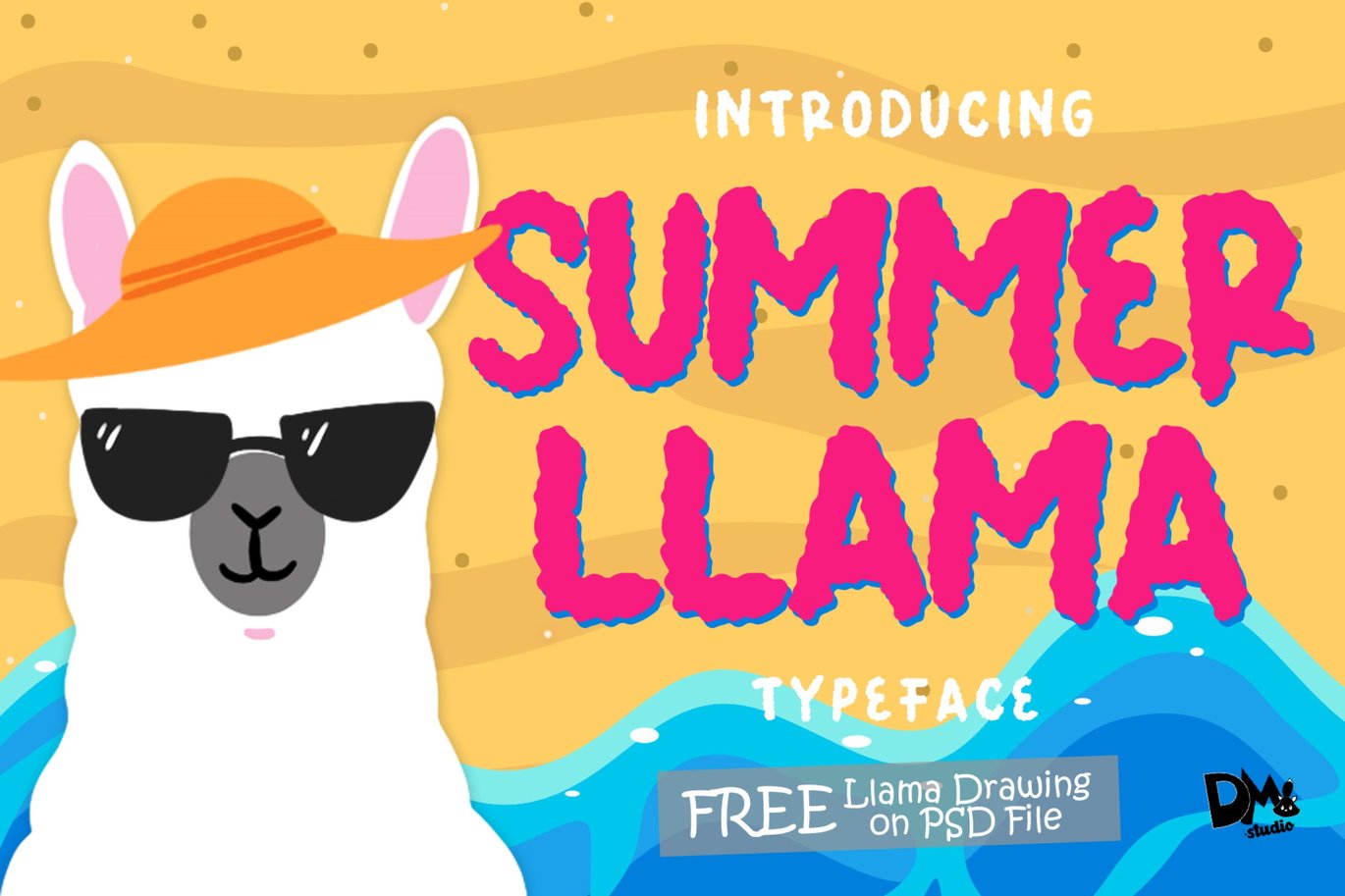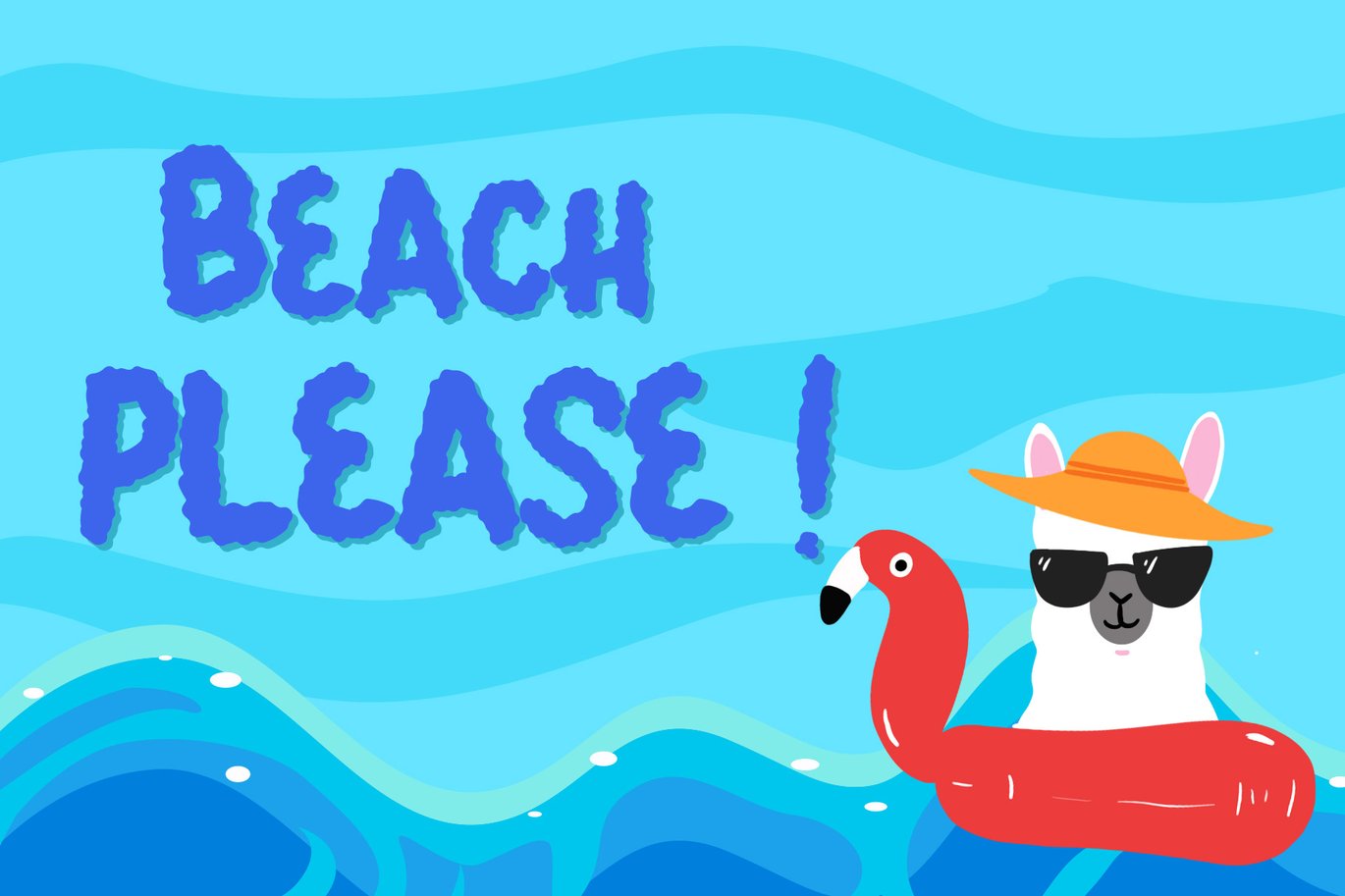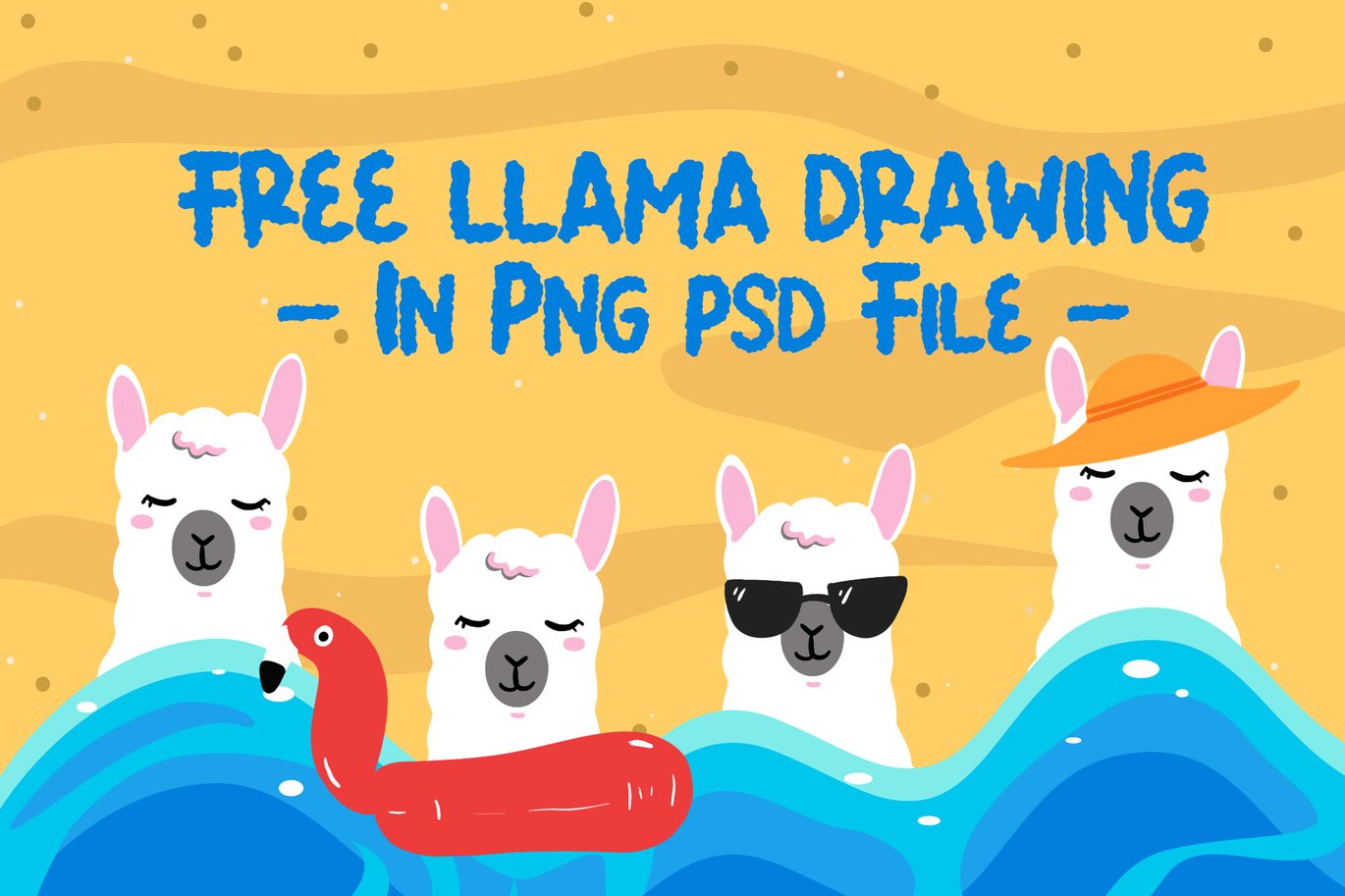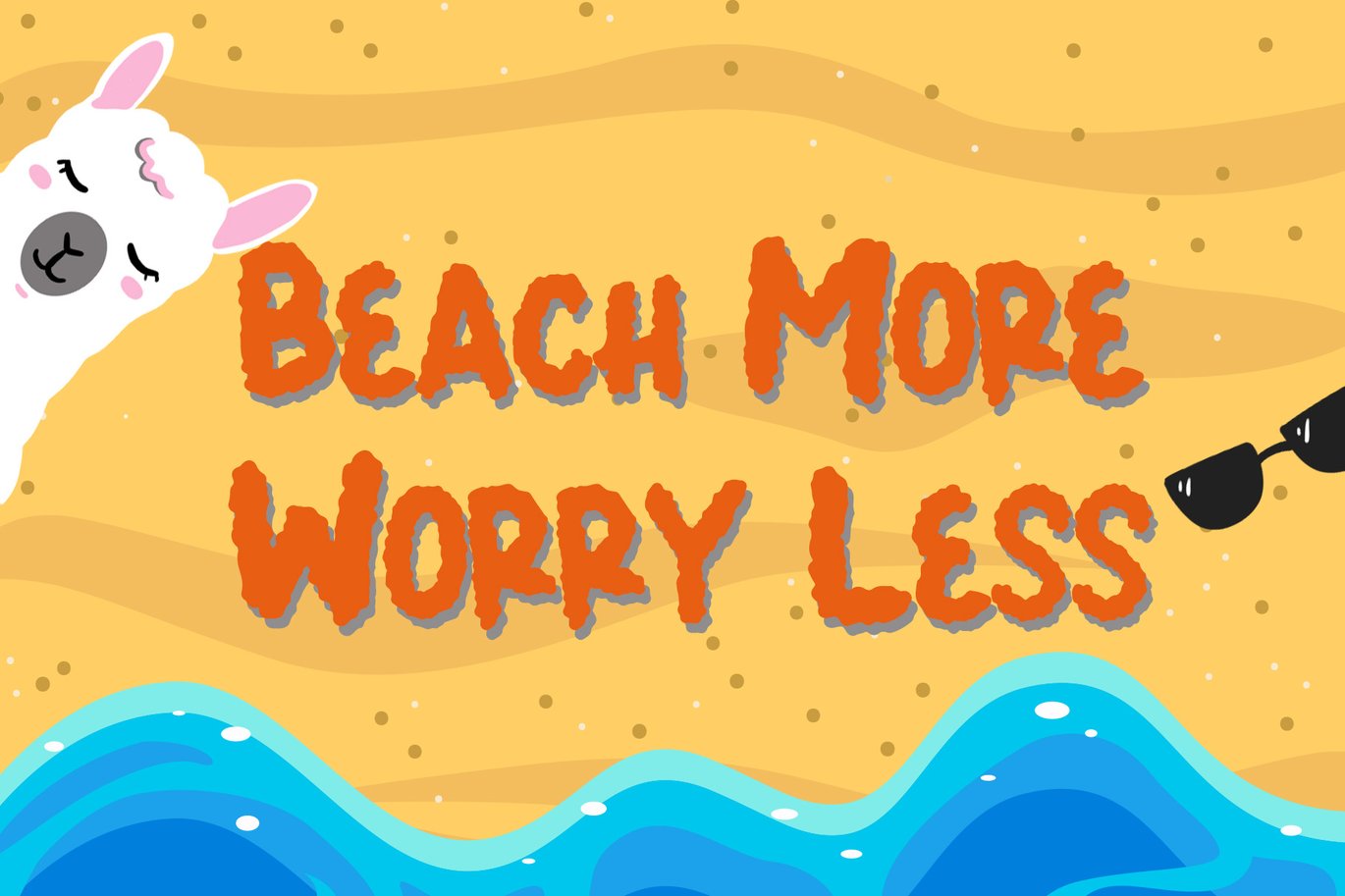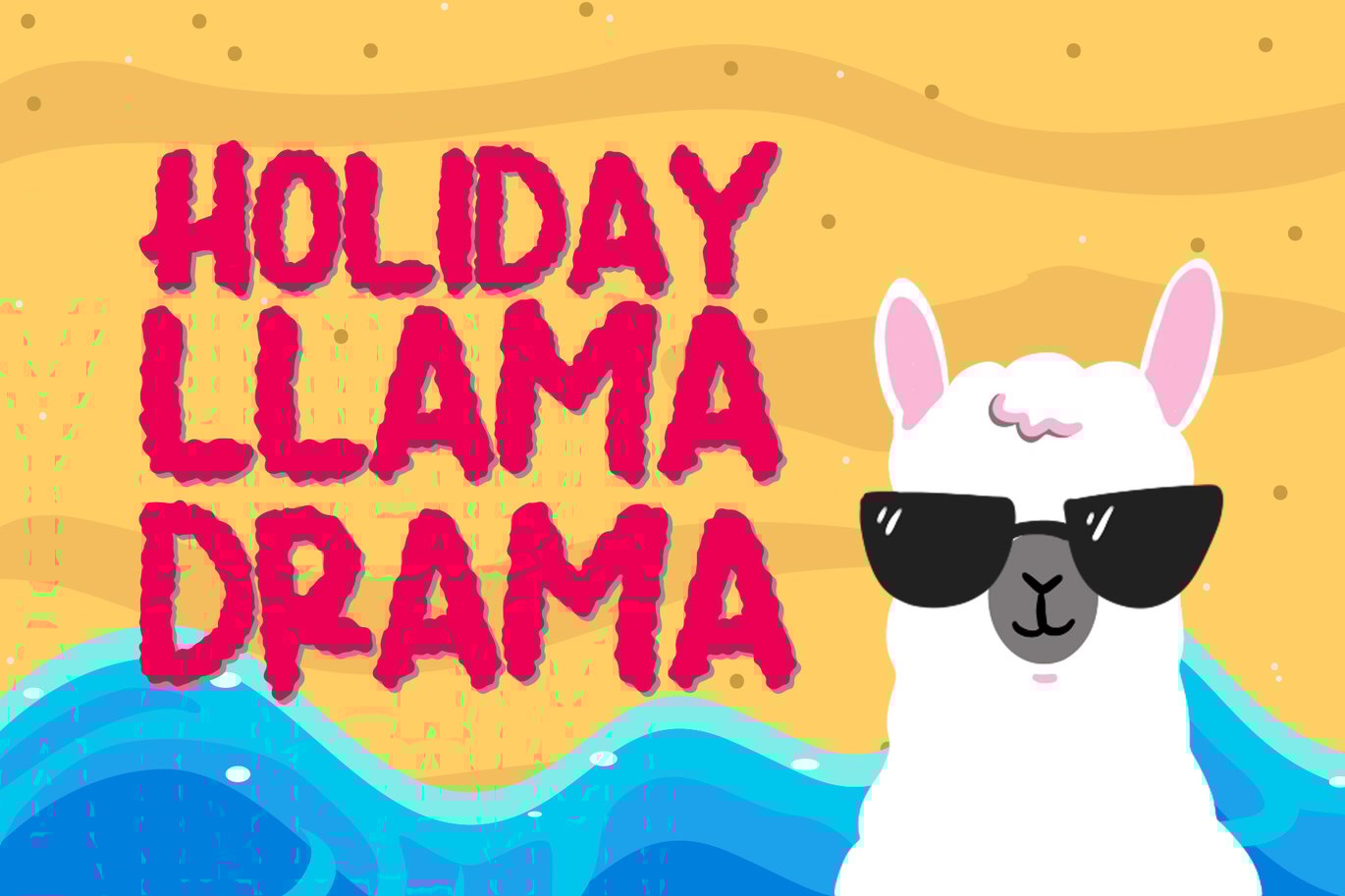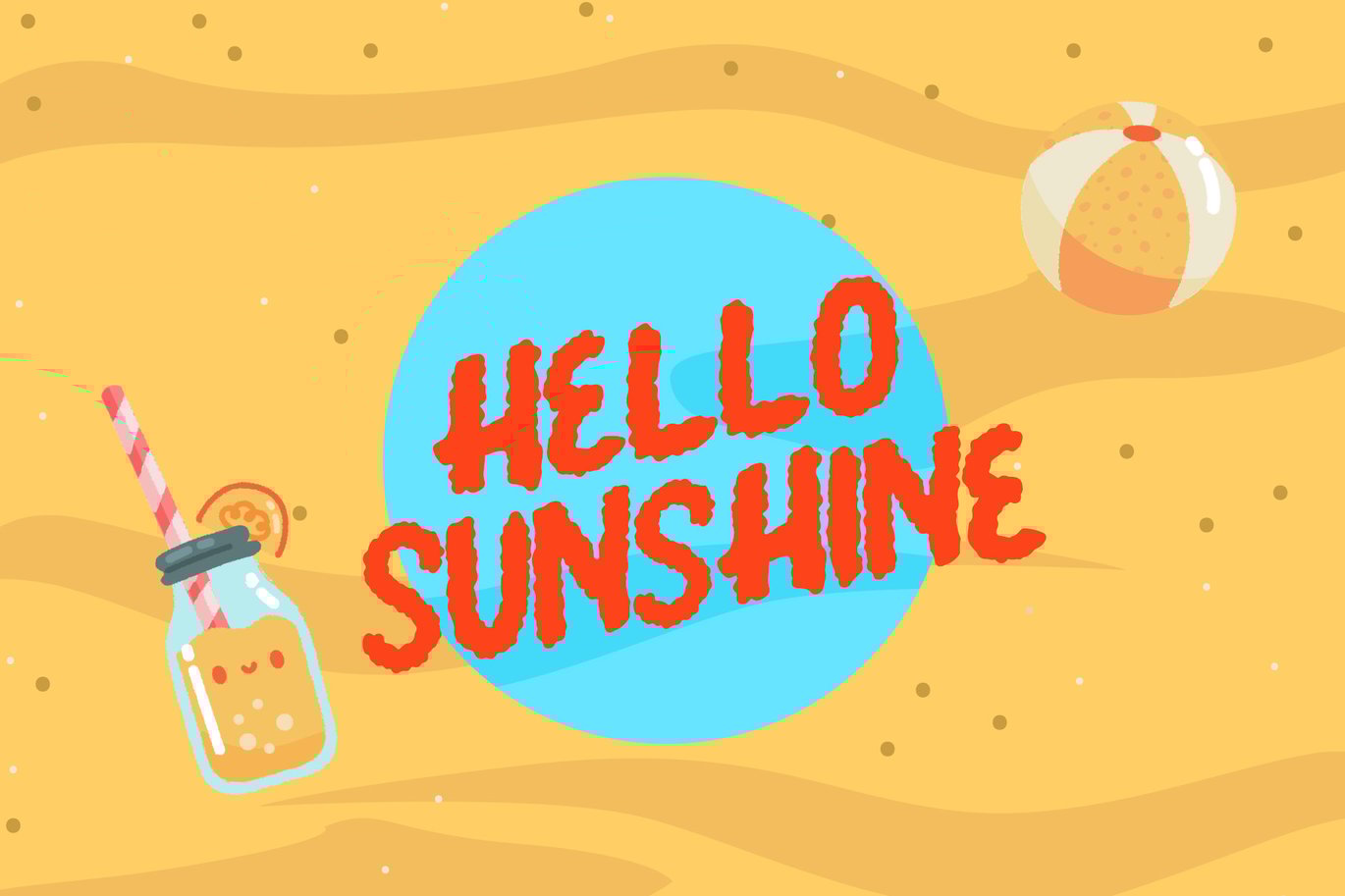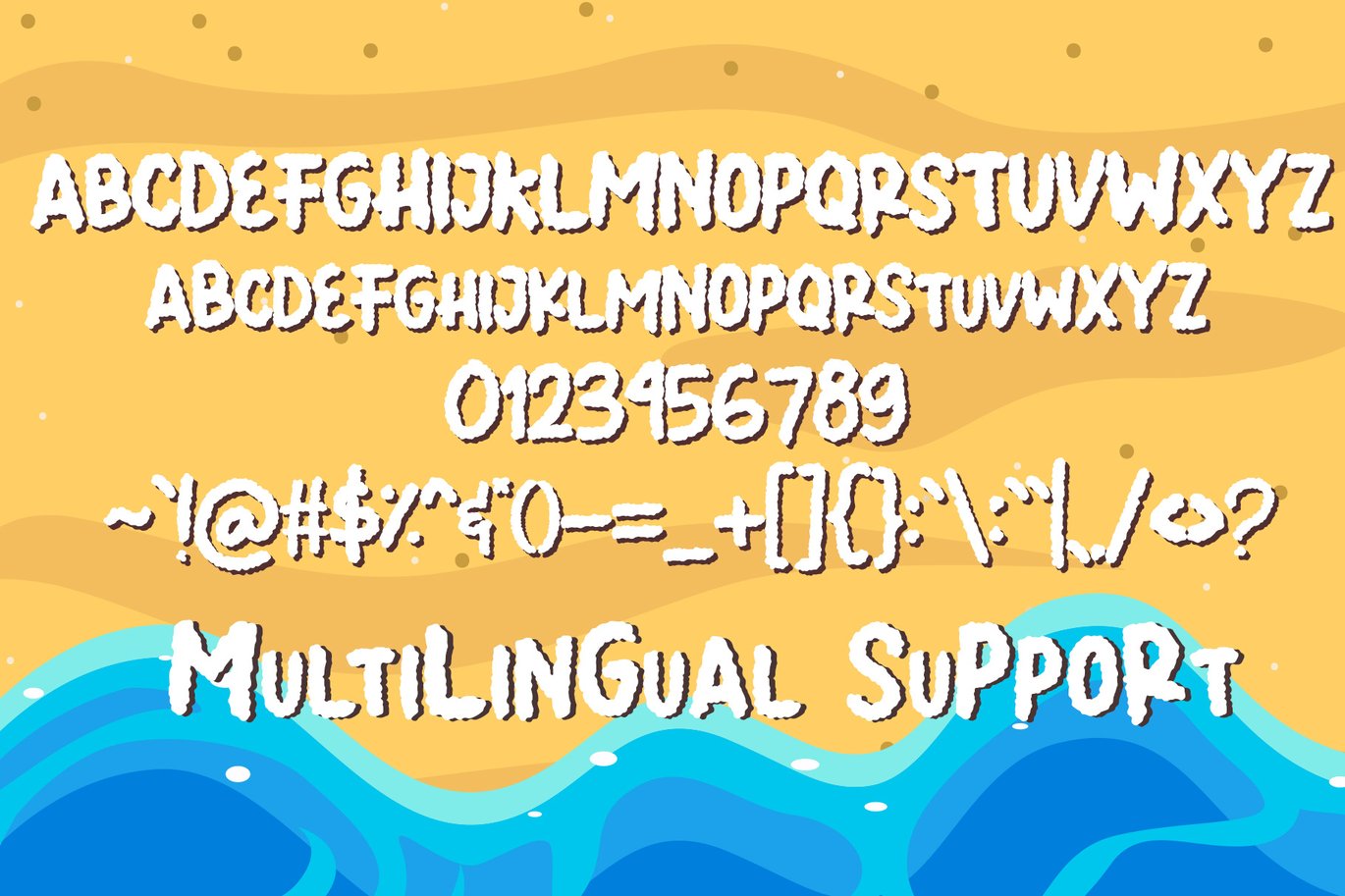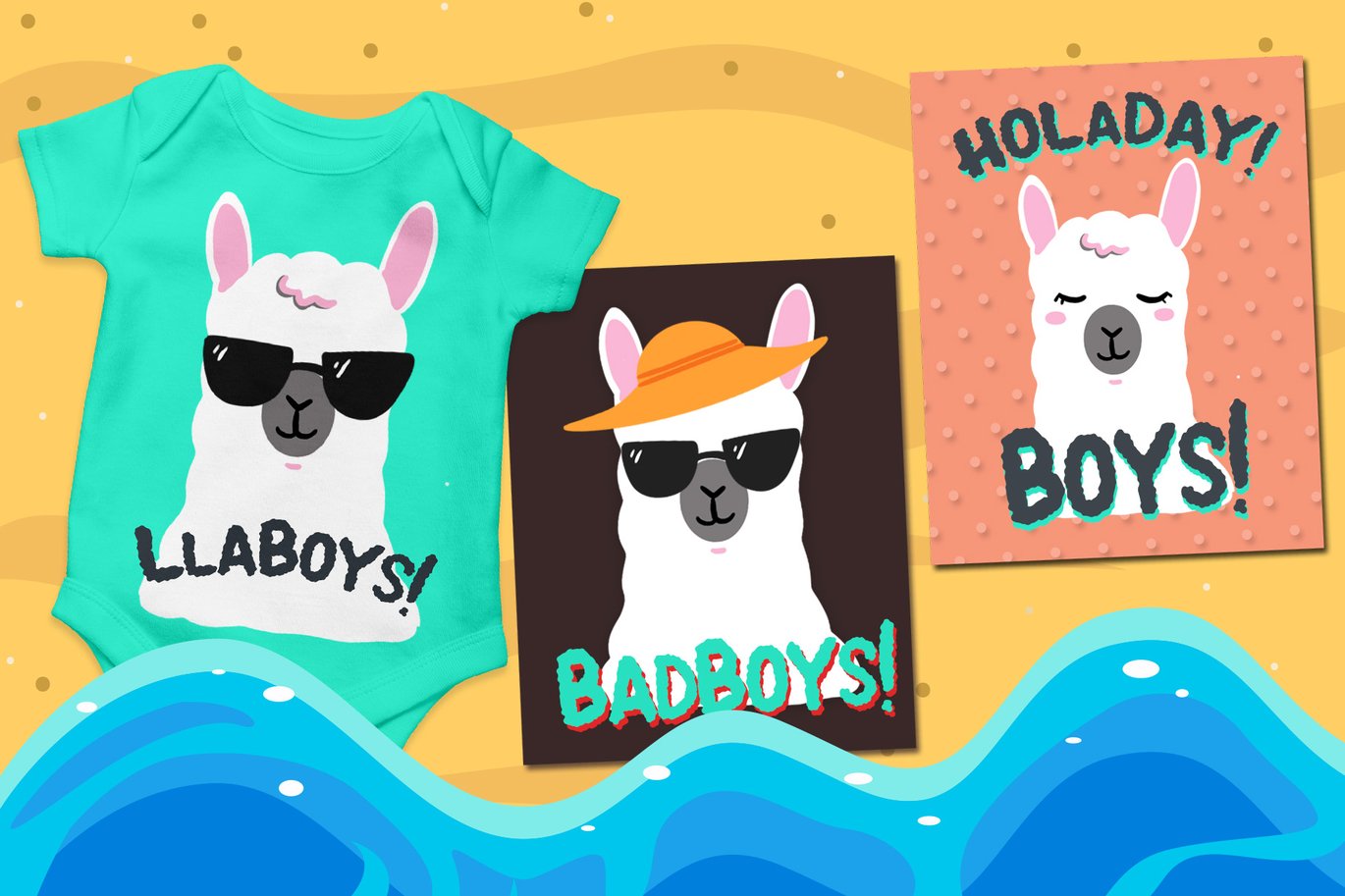
Summer Llama Typeface – Extra Drawing Llama
Welcoming Summer Llama !
It’s a holiday summer theme typeface inspired with llama’s fur, it’s soft, curly and full of cuteness!
Combine with the Llama drawing to make a gorgeous and unique crafts. They will be perfect for pillows, t-shirt, kids stuff, stickers, pin, scrapbooks, posters, promotions and much more !
SUMMER LLAMA Features :
- ALL in Caps character set,
- Numerals
- Symbols